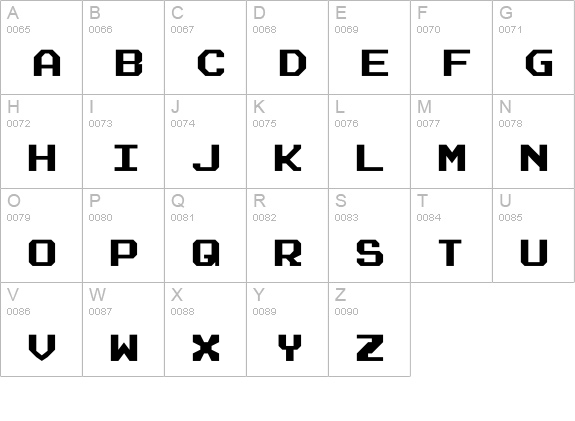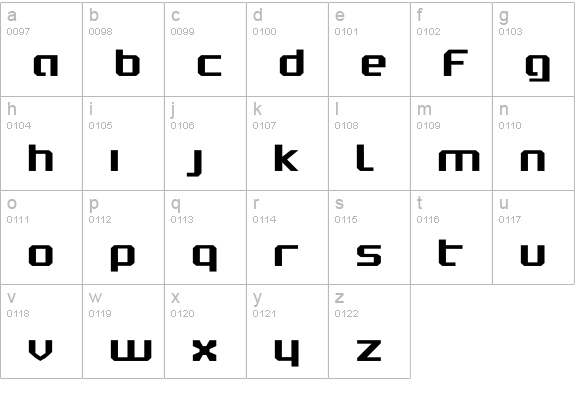
Realpolitik font is a modern and versatile typeface that embodies the principles of political pragmatism. With its clean lines and sharp edges, this font exudes authority and professionalism, making it the perfect choice for any project that requires a strong and confident visual presence. Designed with attention to detail, Realpolitik font offers a wide range of weights and styles, allowing for flexibility and creativity in your designs. Whether you're creating a logo, designing a website, or crafting a print advertisement, this font will elevate your work to a whole new level. But what sets Realpolitik font apart is not just its aesthetic appeal, but also its accessibility. Unlike many other high-quality fonts, Realpolitik font is freely available to download at FontsMarket.com. This means that you can enjoy the benefits of this exceptional font without having to spend a dime. It's a rare opportunity to access a professional-grade typeface without any financial constraints. So, why settle for mediocre fonts when you can have Realpolitik font? Download it today from FontsMarket.com and take your designs to the next level. Whether you're a professional graphic designer or an aspiring artist, this font will undoubtedly become an invaluable tool in your creative arsenal. Don't miss out on this chance to elevate your work and make a lasting impression with the power of Realpolitik font.